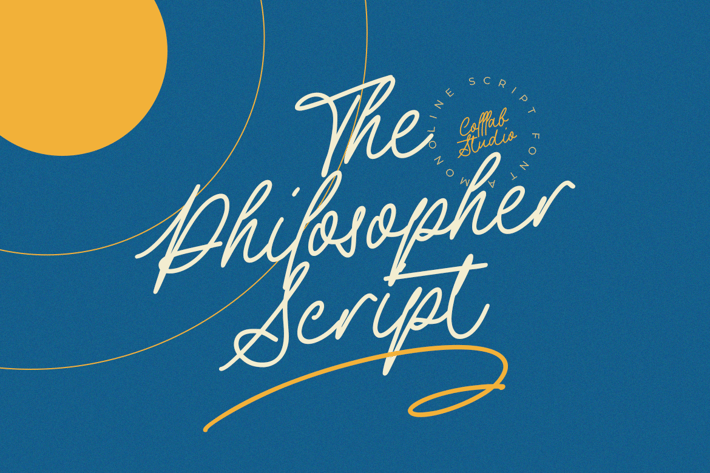
The Philosopher Script - A Monoline Font
The Philosopher Script is a different take on what a monoline script should be. Itβs not like anything else out there and it works in any context
The conciseness of The Philosopher Script makes it well-suited not just for those seeking a new direction in design, but also for anyone producing art, looking to add their own style.
Professional design and smoothed curves that are inherently better than a standard font. It comes with a vast array of ligatures, alternates, and many other helpful glyphs not found in any other typeface
- 433 Glyphs,
- Ligatures and swashes
- 5 sets Stylistic alternate
- Multilanguage Support ( 64 Languages )